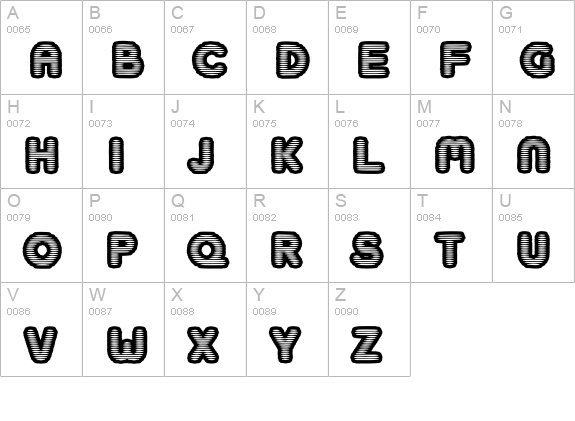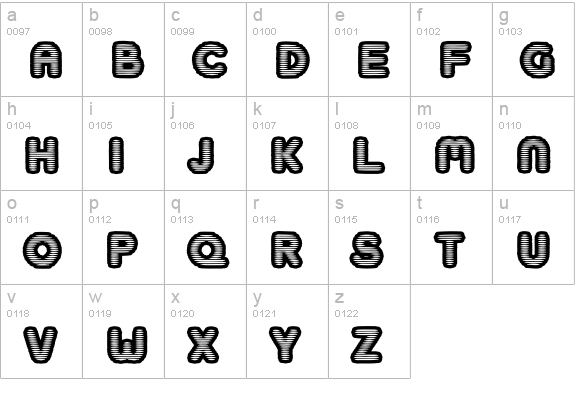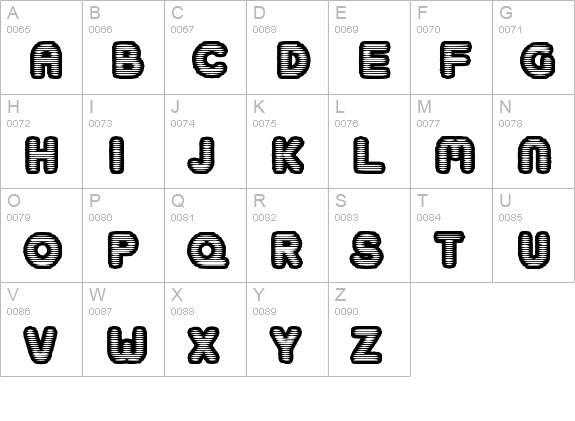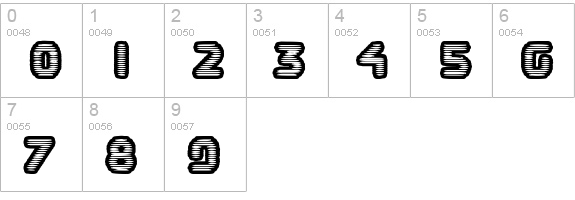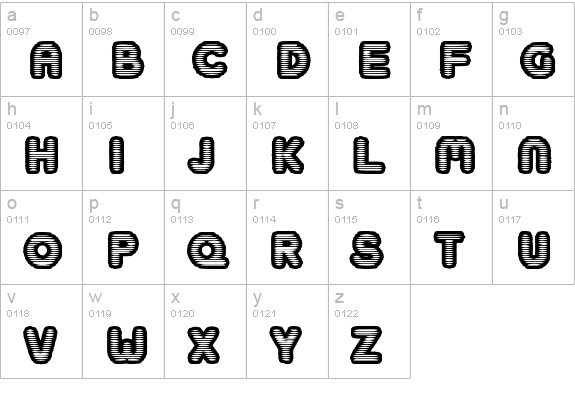
BoobToobOpen Font Details
Introducing BoobToobOpen, a modern and stylish font perfect for adding a touch of sophistication to your design projects. This elegant typeface features clean lines and a sleek appearance that will elevate any text it's applied to. BoobToobOpen is ideal for a wide range of uses, from branding to editorial design, thanks to its versatility and readability. And the best part? BoobToobOpen is available for free download at FontsMarket.com! This means you can start using this beautiful font in your projects right away, without any cost. Don't miss out on the opportunity to enhance your designs with the timeless elegance of BoobToobOpen. Download it today and elevate your typography game!